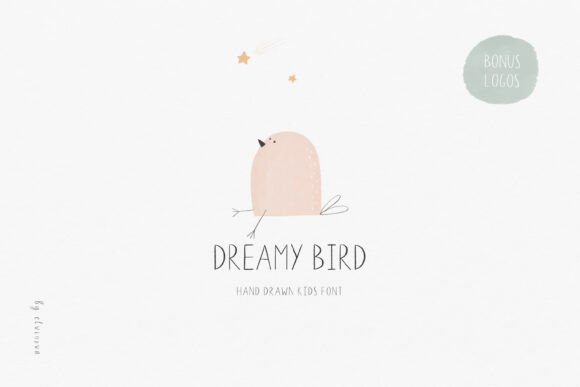
Dreamy Bird Font: A Playful and Creative Choice for Kids’ Projects
The Dreamy Bird font is a delightful, hand-drawn typeface that is sure to bring a smile to anyone’s face, especially kids. Its playful and bouncy letters are designed to add a cheerful and creative touch to various projects, making it an excellent choice for posters, storybooks, crafts, and more. In this article, we’ll dive into the world of Dreamy Bird font, exploring its features, benefits, and uses.
What Makes Dreamy Bird Font So Special?
Dreamy Bird font is a unique and charming typeface that boasts several distinctive features:
- Hand-drawn design: Each letter is carefully crafted by hand, giving the font a personal and whimsical feel.
- Playful and bouncy letters: The font’s letters are designed to be fun and energetic, making it perfect for kids’ projects.
- Easy to read: Despite its playful nature, Dreamy Bird font is surprisingly easy to read, making it suitable for both kids and adults.
- Full of charm: The font’s quirky and endearing design is sure to capture the hearts of anyone who uses it.
Creative Ways to Use Dreamy Bird Font
The versatility of Dreamy Bird font makes it an excellent choice for a wide range of projects, including:
- Posters and flyers: Add a playful touch to your promotional materials with Dreamy Bird font.
- Storybooks and children’s books: Bring your stories to life with the font’s whimsical and engaging design.
- Crafts and DIY projects: Use Dreamy Bird font to add a personal touch to your craft projects, such as handmade cards, gift tags, and more.
- Digital content: Incorporate the font into your digital content, such as blog posts, social media graphics, and email newsletters.
Tips and Tricks for Using Dreamy Bird Font
To get the most out of Dreamy Bird font, here are some tips and tricks to keep in mind:
- Pair with complementary fonts: Combine Dreamy Bird font with other fonts that complement its playful and whimsical nature.
- Experiment with colors and textures: Add an extra layer of depth and interest to your designs by experimenting with different colors and textures.
- Use it sparingly: While Dreamy Bird font is perfect for kids’ projects, it’s essential to use it sparingly to avoid overwhelming the design.
Inspiration and Examples
To give you a better idea of what you can create with Dreamy Bird font, here are some inspiring examples:
| Font Name | Dreamy Bird Font |
| Author | elvinova |
In conclusion, Dreamy Bird font is a delightful and creative typeface that is perfect for kids’ projects. Its playful and bouncy letters, hand-drawn design, and ease of readability make it an excellent choice for posters, storybooks, crafts, and more. With its versatility and charm, Dreamy Bird font is sure to bring a smile to anyone’s face.